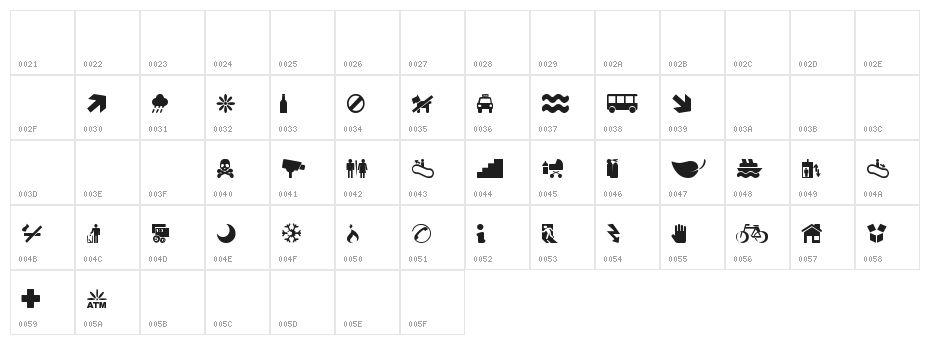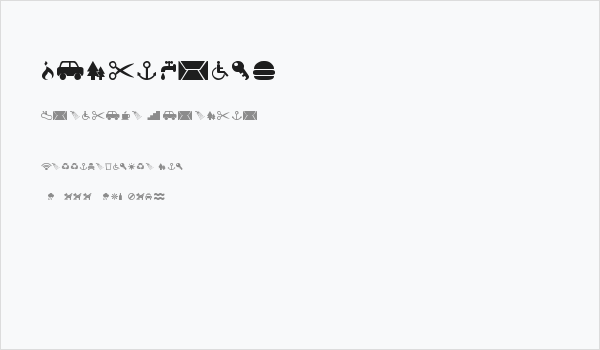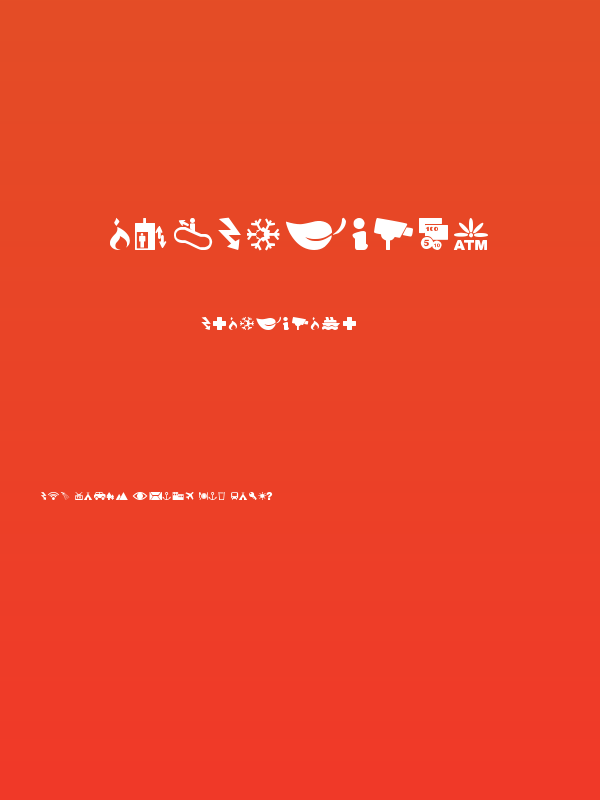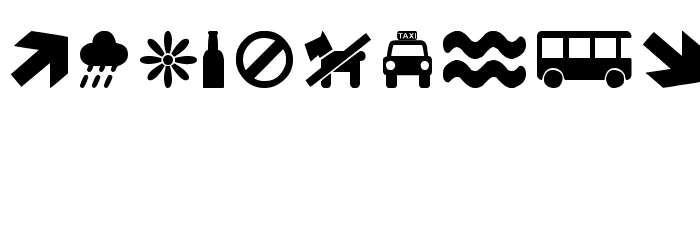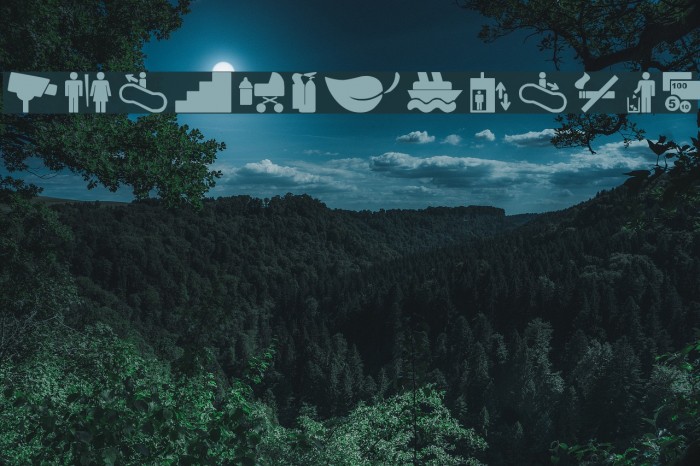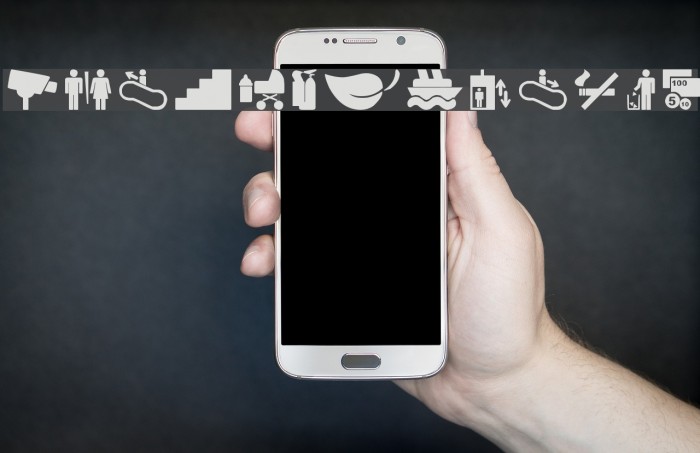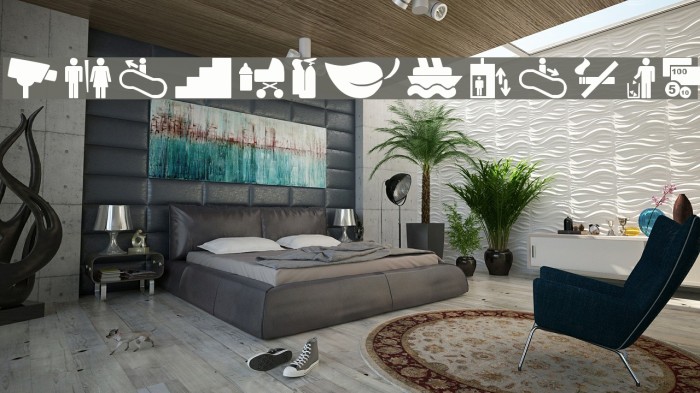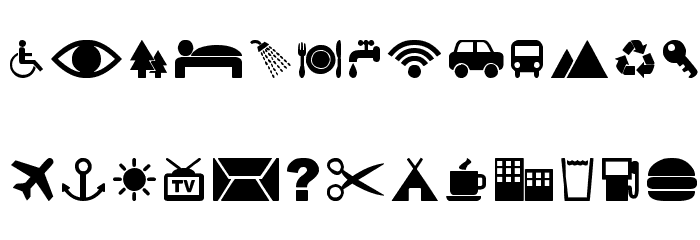
Pictogramz Font
Pictogramz Description
A collection of bold, simplified pictograms designed for clear visual communication, featuring solid black shapes with minimal detail for maximum legibility at small sizes.
| Overall Style | Modern, Functional |
| Use Case | Signage, Icons, Wayfinding, Maps |
| Proposed Projects | Public signage, transportation systems, airports, parks, infographics, instructional guides, wayfinding systems. |